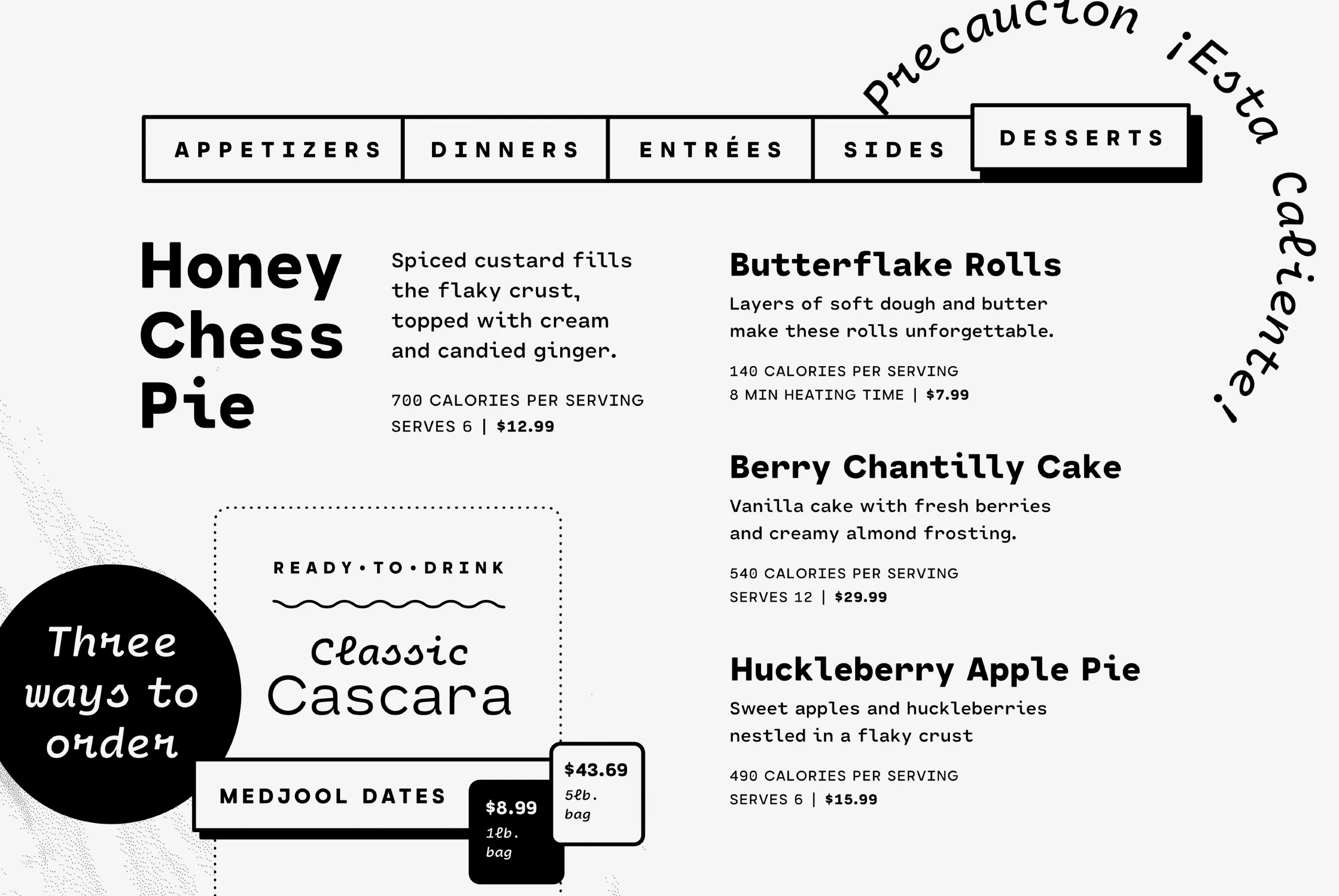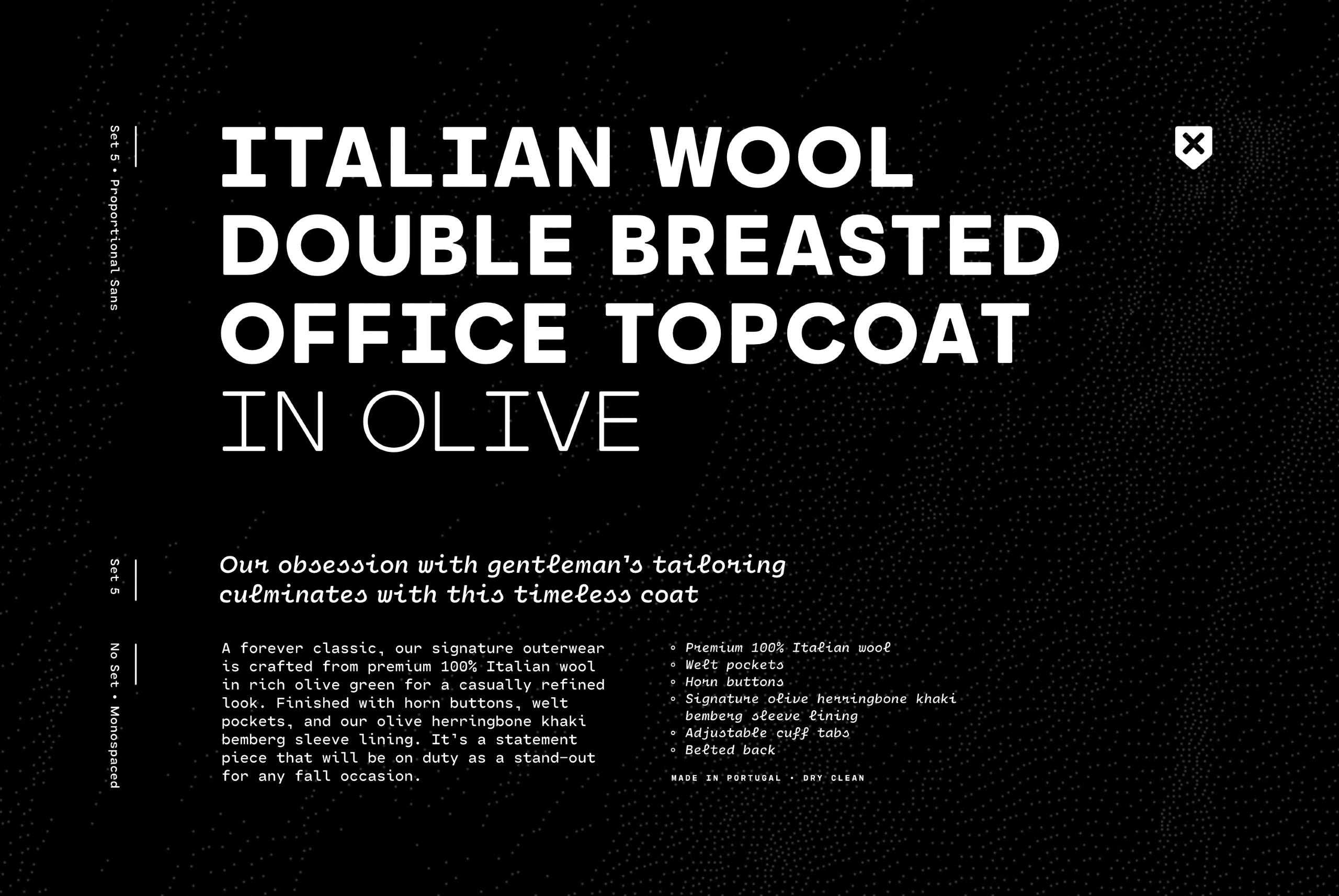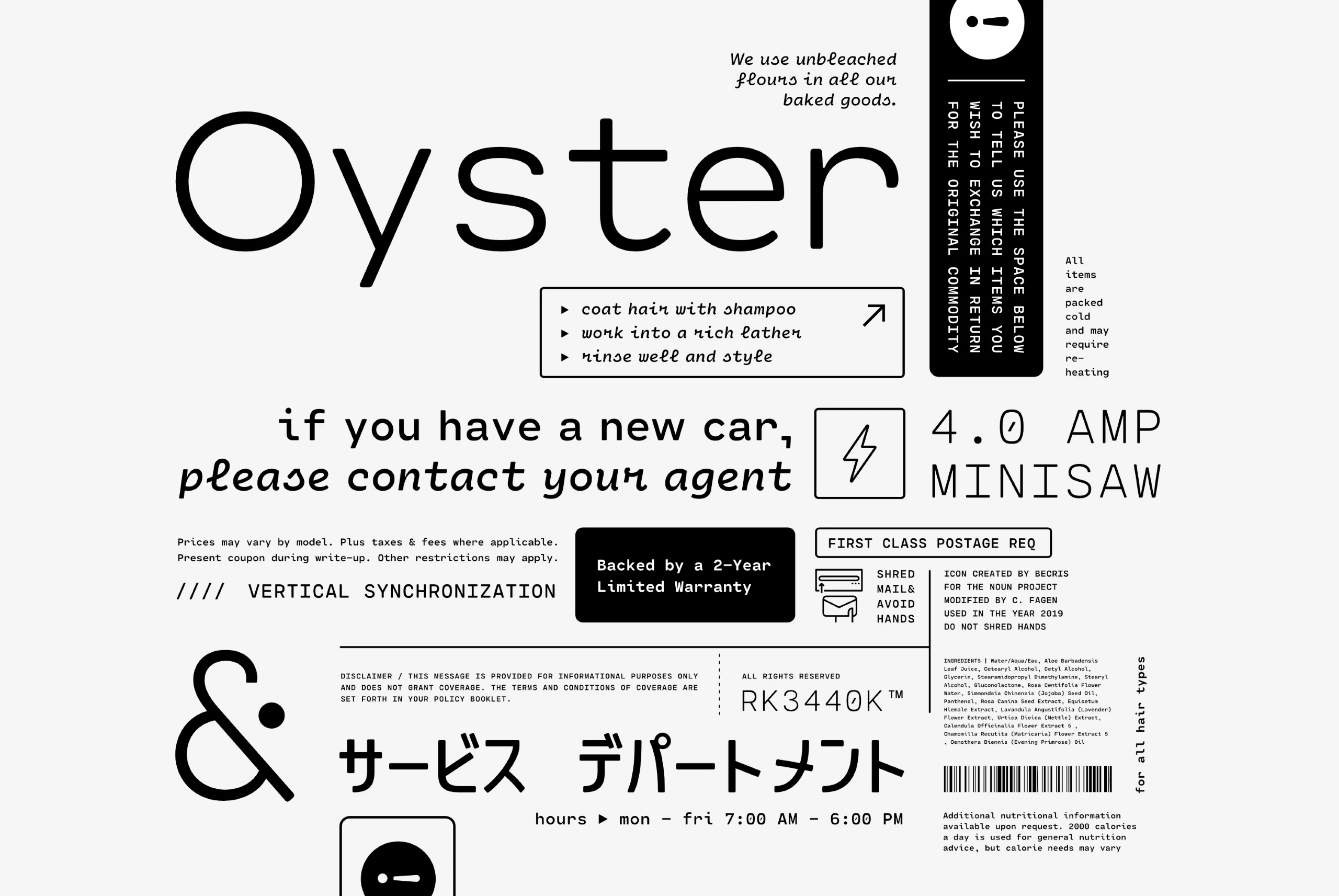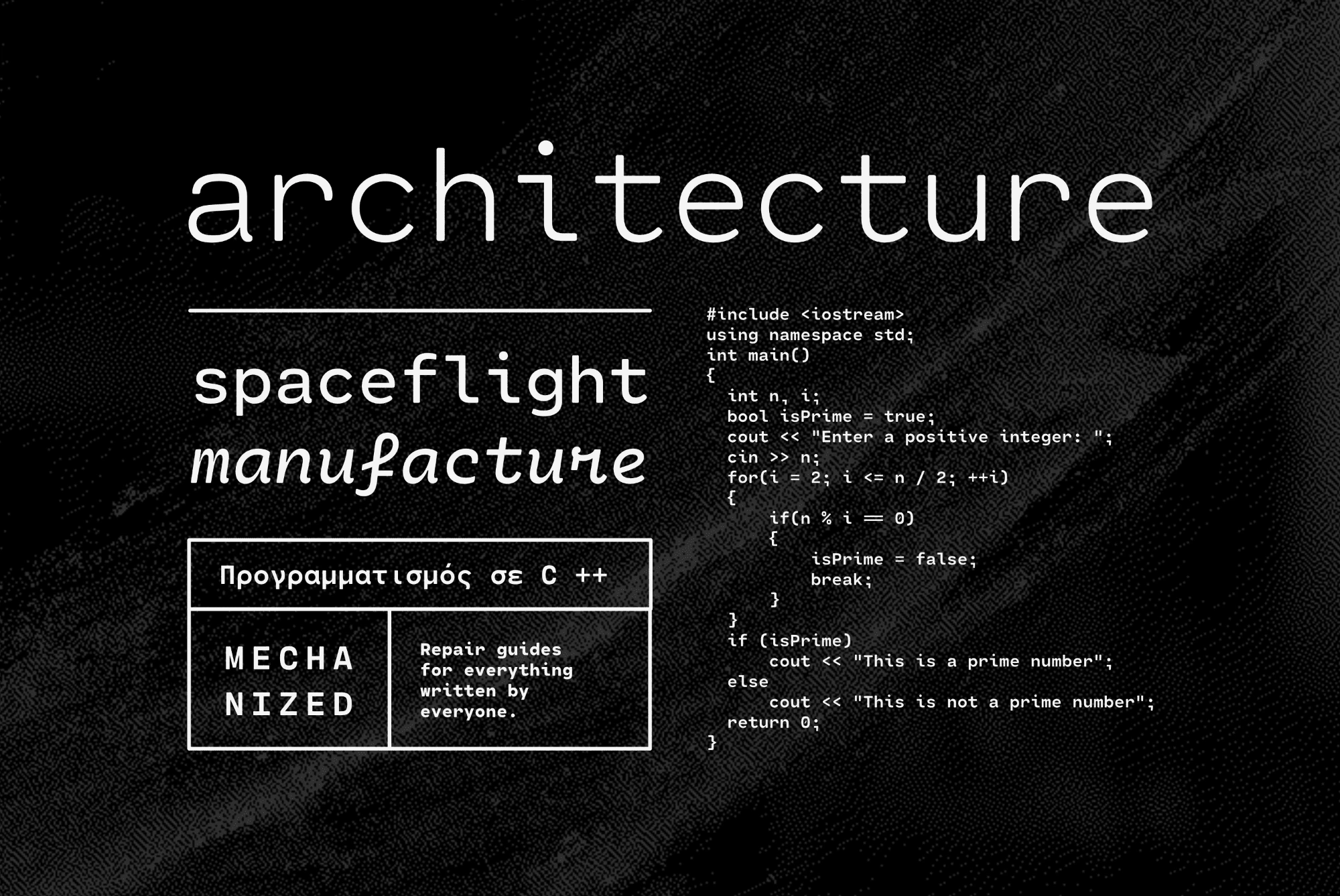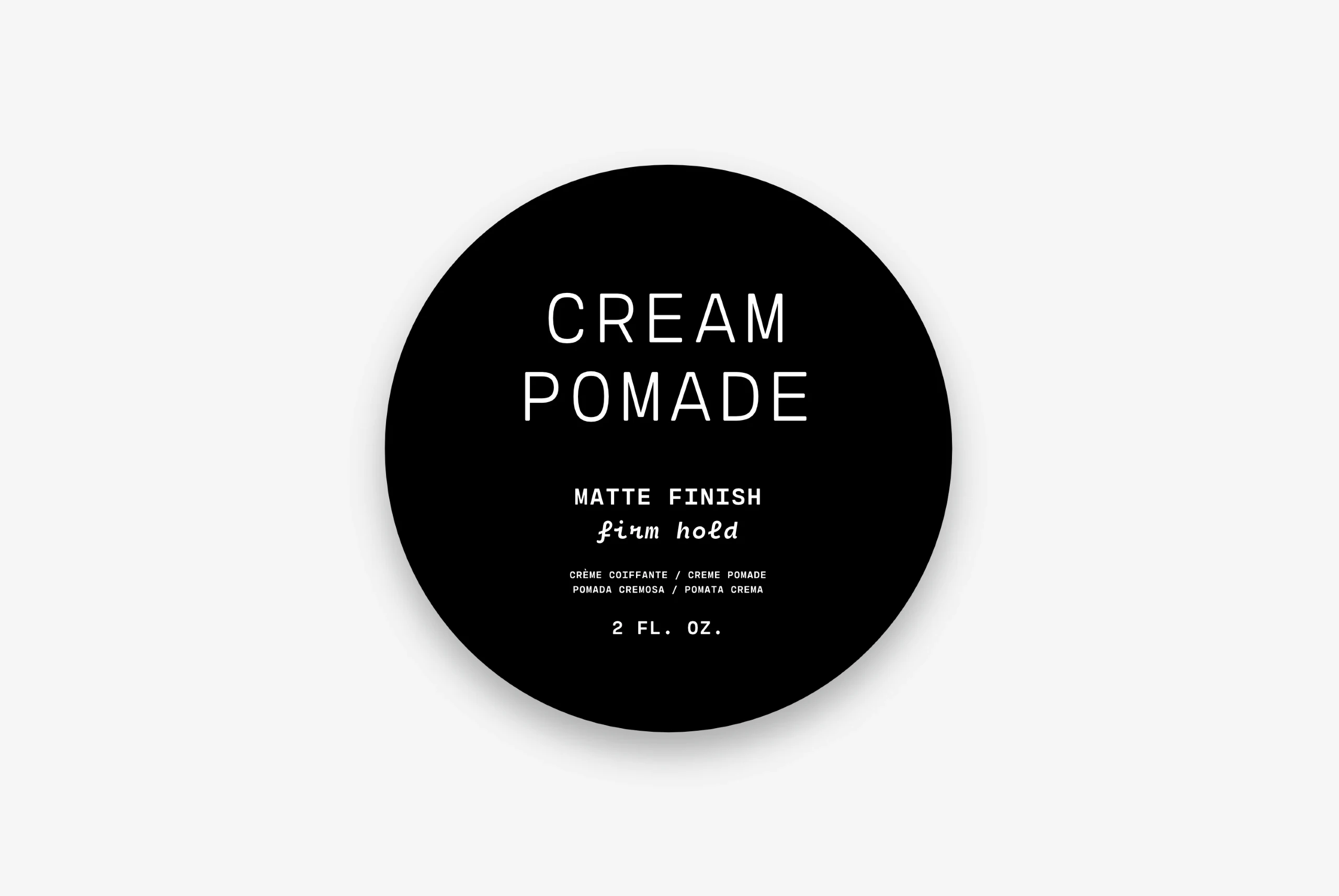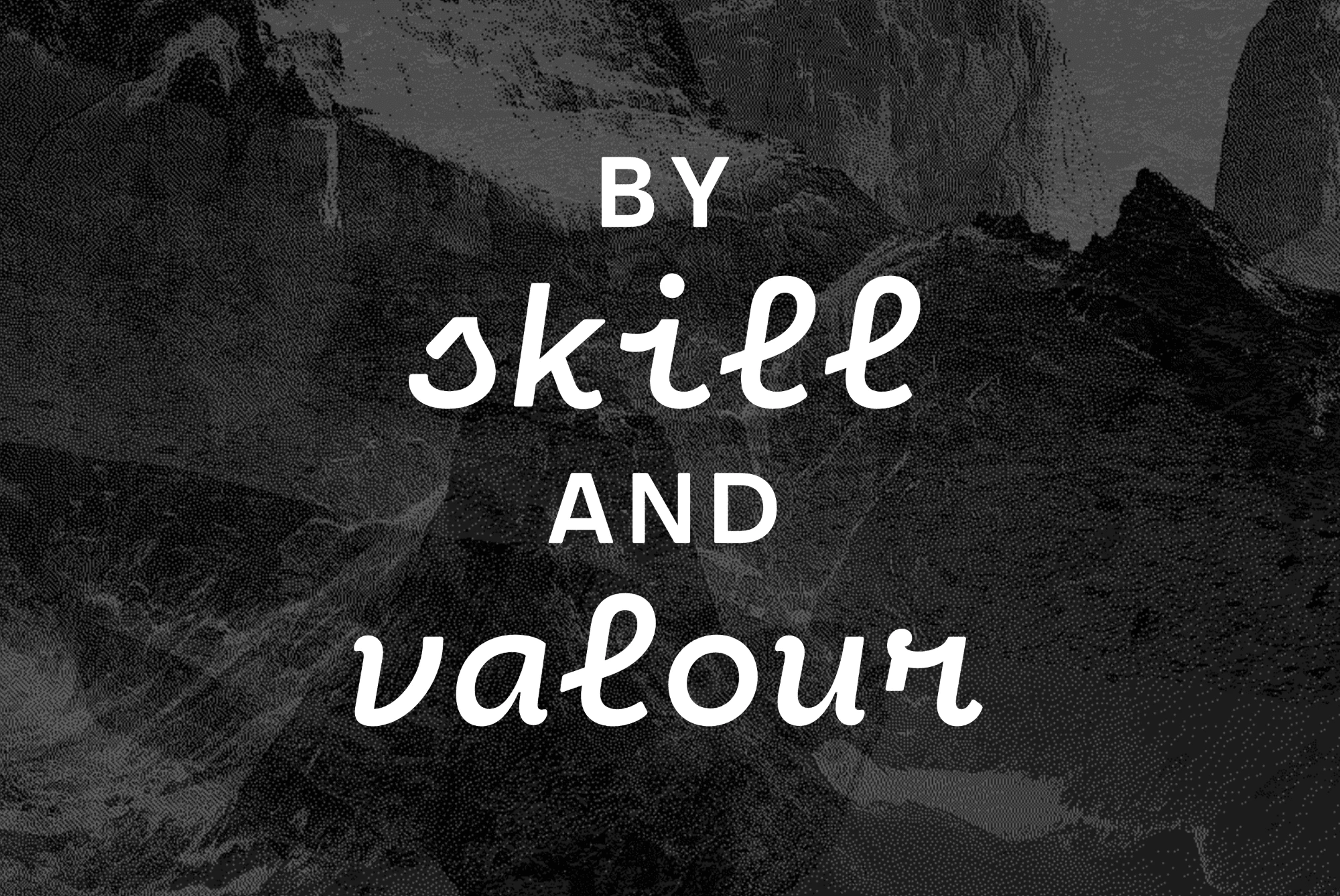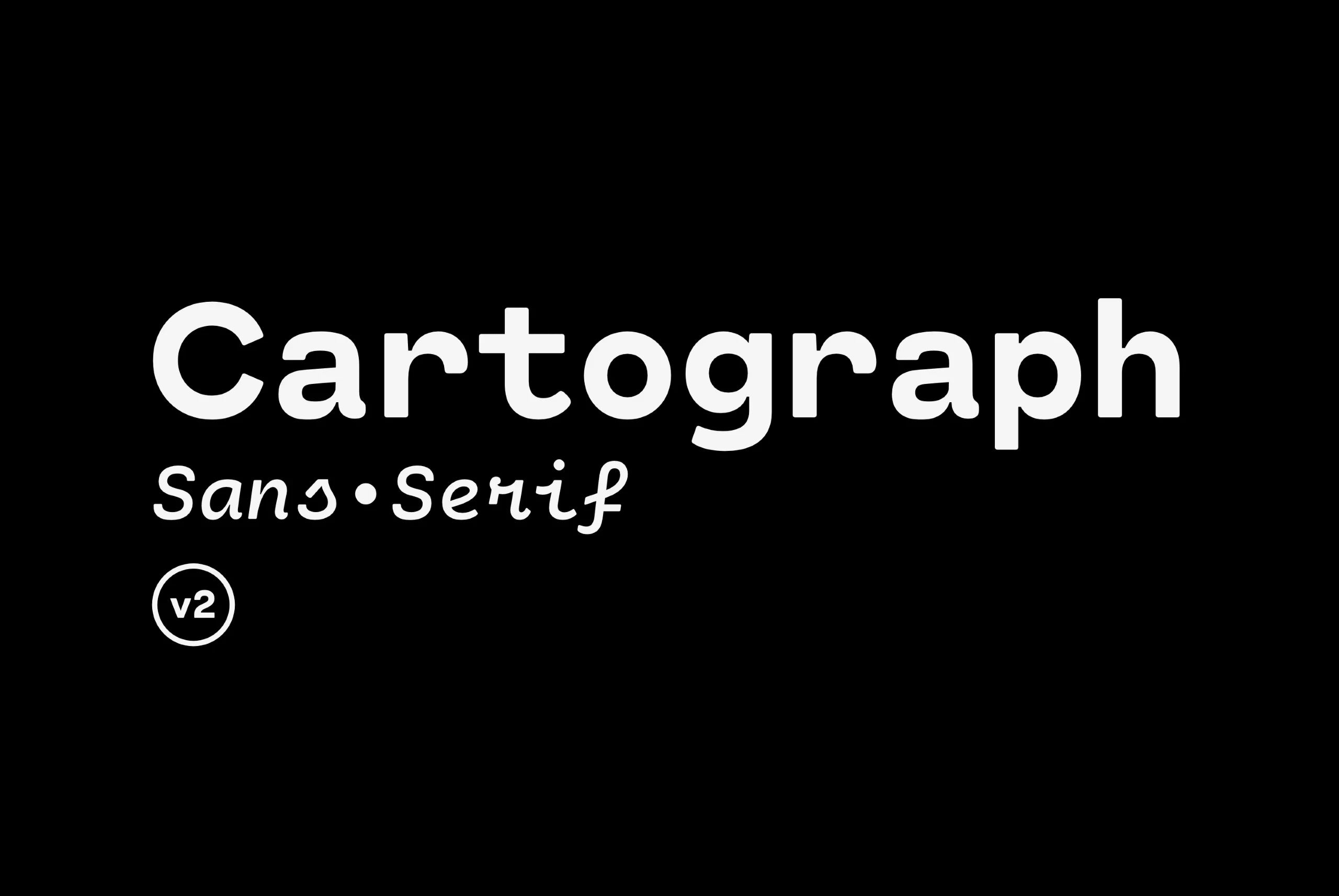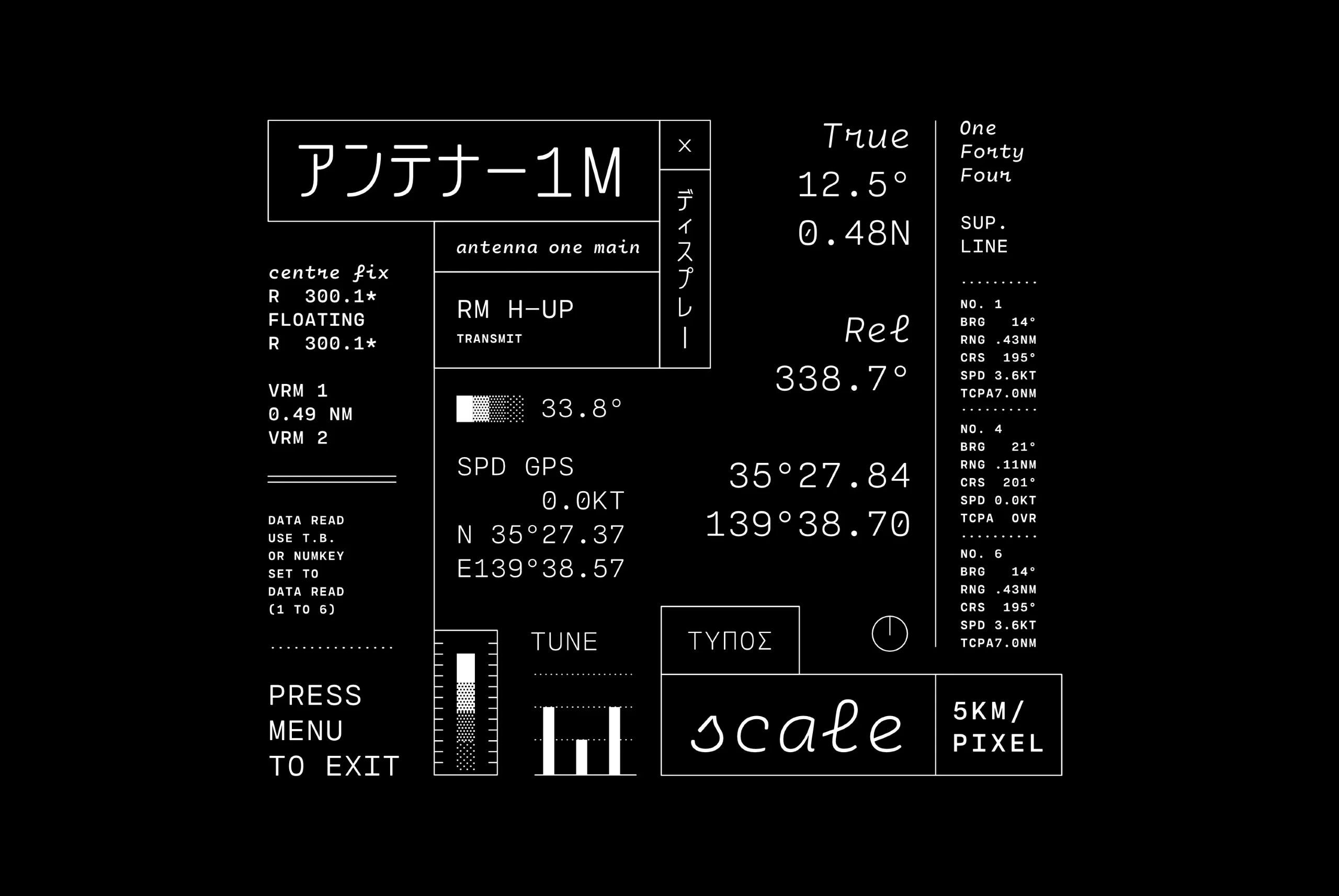
Cartograph
Cartograph Font Family
A monospaced typeface with character and warmth, Cartograph© CF is a handsome font family featuring a lush, cursive italic, code-friendly ligatures, and a proportional set accessible via OpenType. A tribute to the utilitarian beauty of terminals and typewriters, Cartograph excels in both code and prose.
eight Weights in Latin & Cyrillic • Greek • Japanese Katakana • Vietnamese • Pinyin • Code Ligatures Script
Cartograph font by Connary Fagen Fonts — a menu with sections for Appetizers, Dinners, Entrées, Sides, and Desserts, with the words “precaución ¡Esta Caliente!” in a script font curving around the top rightCartograph font by Connary Fagen Fonts — a graphic resembling a computer interface, with the words “New in v.2” in italic sans-serif and “Cartograph v.2” in upright sans-serif, alongside text in various languages and interface icons like folders and filesCartograph font by Connary Fagen Fonts — the words “ITALIAN WOOL DOUBLE BREASTED OFFICE TOPCOAT IN OLIVE” in sans serif capitals, with smaller text below in a monospaced sans serif and a cursive script.Cartograph font by Connary Fagen Fonts — the word “Oyster” in large upright sans serif letters, with various smaller text blocks in upright sans serif, italic sans serif, and Japanese characters, plus a large ampersand and several small icons including a lightning bolt and an exclamation mark.Cartograph font by Connary Fagen Fonts — the upright sans-serif word “architecture” above the words “spaceflight” and italic “manufacture”, with a block of C++ code to the right and a box of Greek and English text belowCartograph font by Connary Fagen Fonts — a black circle with the words “CREAM POMADE” in upright sans-serif letters, “MATTE FINISH” in upright sans-serif letters, “firm hold” in connected script, and other product details in upright sans-serif letters.Cartograph font by Connary Fagen Fonts — the words “BY skill AND valour” in white, with “skill” and “valour” in a connected script, against a dark, textured mountain landscapeCartograph font by Connary Fagen Fonts — the word “Cartograph” in a sans-serif upright style, with “Sans ”, a dot, and “Serif” below it in an italic connected script style, and a circled “v2” below that.Cartograph font by Connary Fagen Fonts — a screen of white monospaced text and data readouts on a black background, with some words in an upright sans-serif and others in a cursive italic